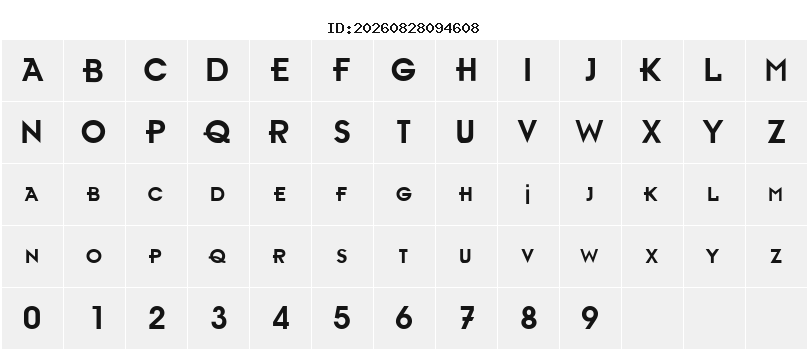
TrSah Ambient Preview
• Font Name: TrSah Ambient
• Full Font Name: TrSah Ambient Medium
About TrSah Ambient.ttf
TrSah Ambient.ttf is a modern, elegant sans-serif font designed for ultimate readability and visual harmony. Perfect for branding, headlines, web design, and print materials.